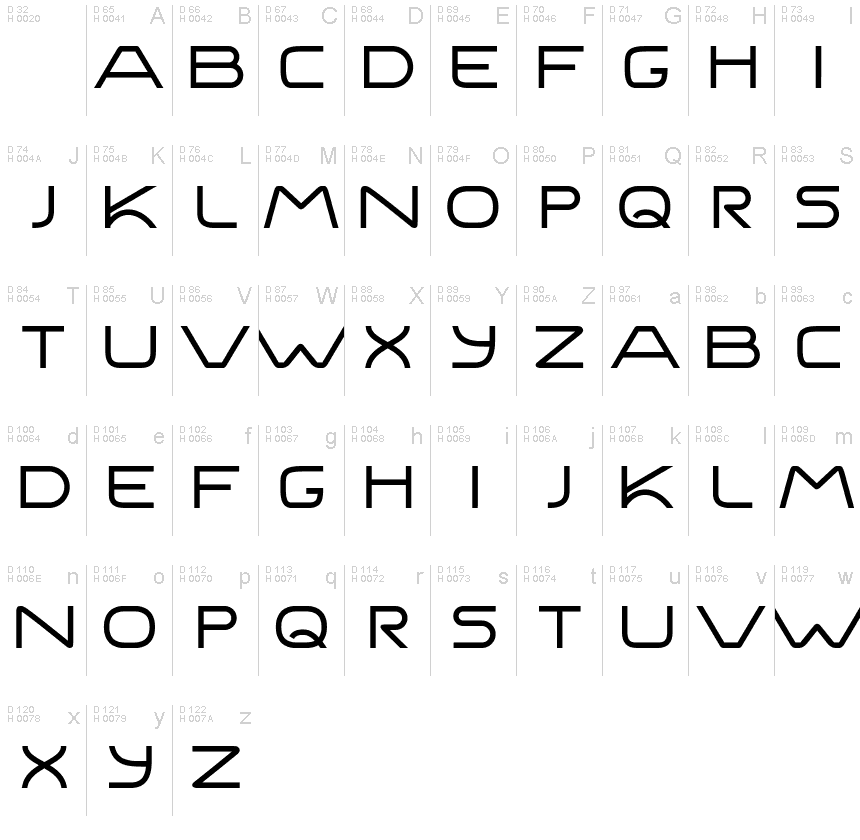
Kamenko Regular
Kamenko, a brainchild of the imaginative Vladimir Nikolic, stands out as a display font with an undeniable presence. Its semi-light weight is artfully juxtaposed with an extra-expanded width, crafting letters that command attention while maintaining a certain airiness. The bold geometric shapes and sweeping curves blend to create an aesthetic that is both contemporary and versatile.
The expansive stance of Kamenko's characters gives it a striking visual impact, making it an excellent choice for headlines, posters, and any project requiring a touch of modern flair without overwhelming substance. Its clean lines and open forms ensure readability at larger sizes, which is perfect for display purposes.
Whether you're looking to infuse your branding with character or to make a statement on promotional materials, Kamenko offers that unique blend of style and functionality that can elevate your creative vision to new heights.